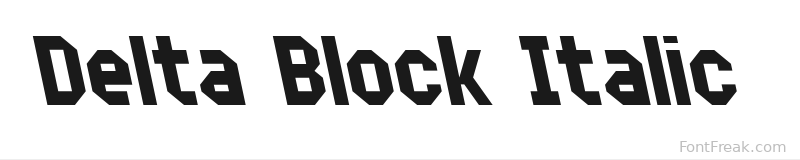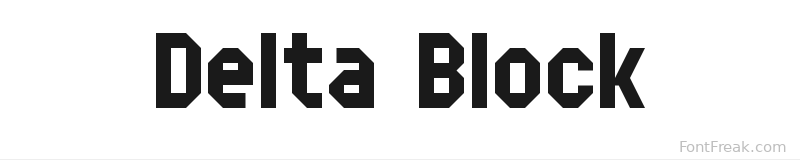
Delta Block
Delta Block Italic
Delta Block by GGBot is a striking display font that combines boldness with a modern aesthetic. As a sans-serif typeface, it features clean lines and a geometric structure that makes it perfect for a variety of creative applications. The font's stroke weight is consistent, providing a sense of stability and strength, while the slight italic slant adds a dynamic flair that enhances its visual appeal. The spacing of the characters is well-balanced, allowing for easy readability, which is essential in both print and digital formats.
This font is particularly well-suited for use cases such as movie posters, where impactful headlines are crucial, or restaurant menus that aim to capture attention with a contemporary vibe. It also works wonderfully for branding materials like logos and promotional graphics, as well as social media posts that require a bold statement. Small business owners and graphic designers will find Delta Block to be an invaluable addition to their font collection, as it can elevate the visual identity of any project.
What sets Delta Block apart is its ability to fuse functionality with style. The modern yet timeless design means it can adapt to various themes and contexts, ensuring that your message is communicated effectively. Whether you're designing for a bold campaign or a sleek brand identity, Delta Block offers the versatility and impact needed to make a lasting impression.